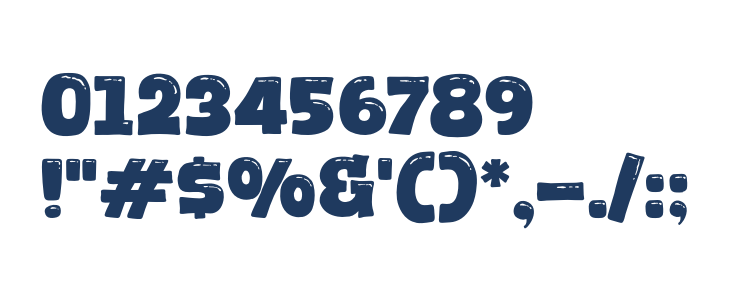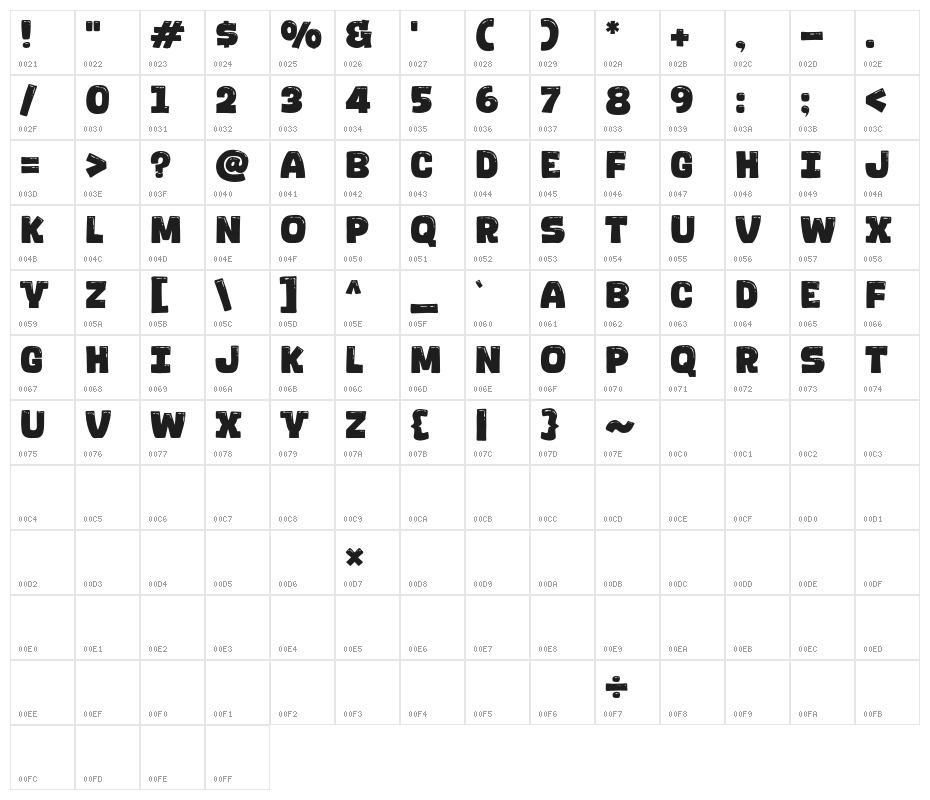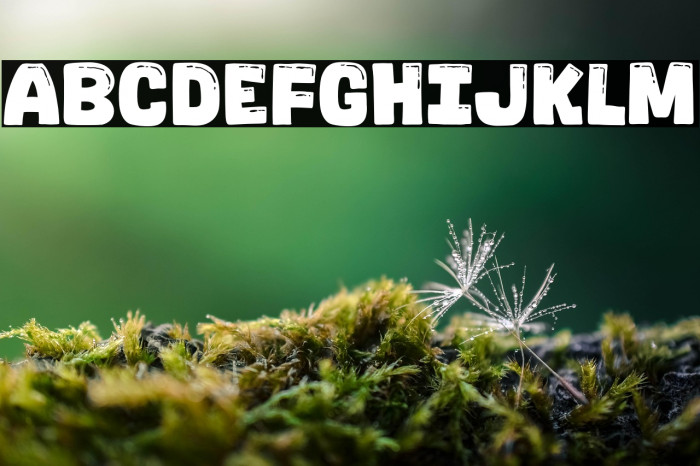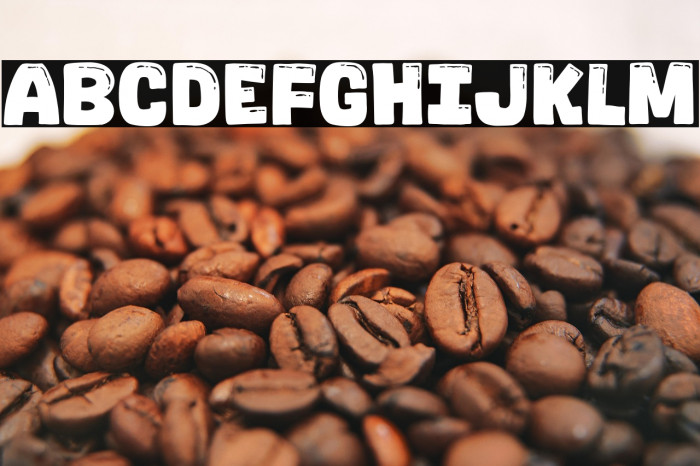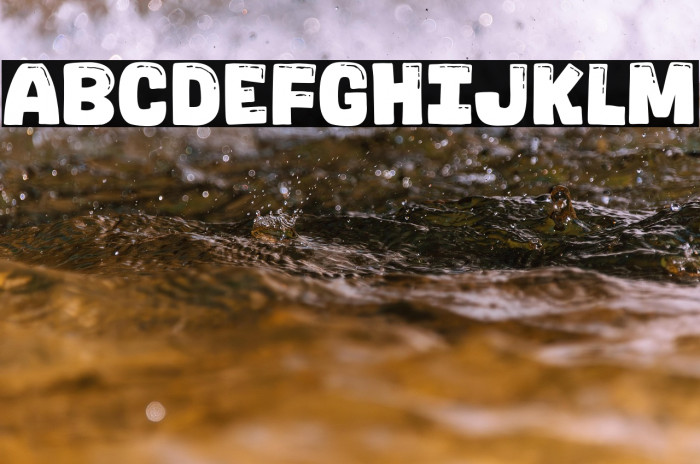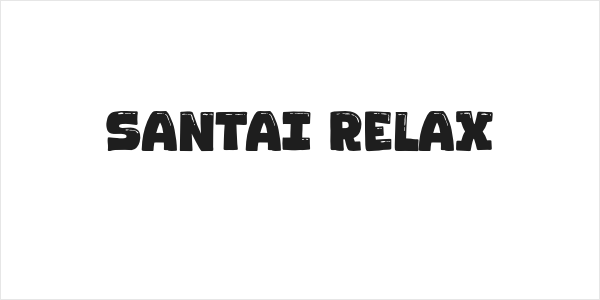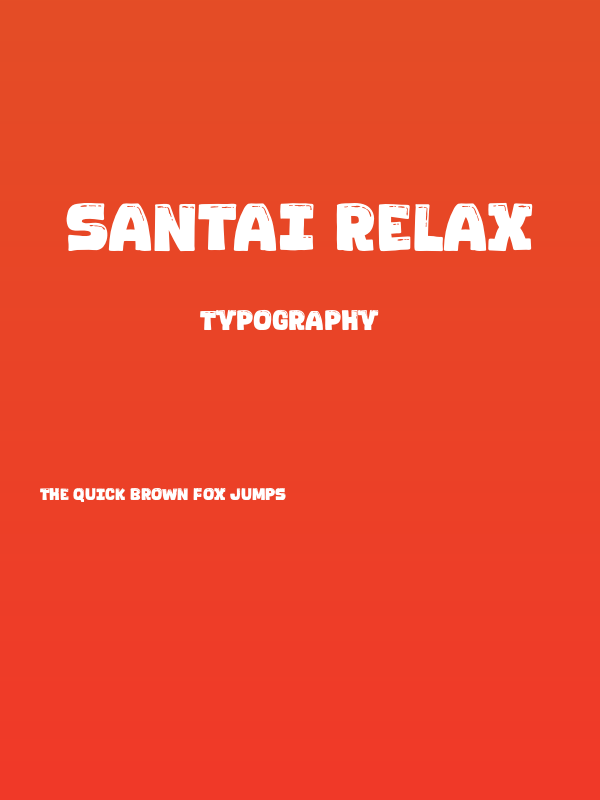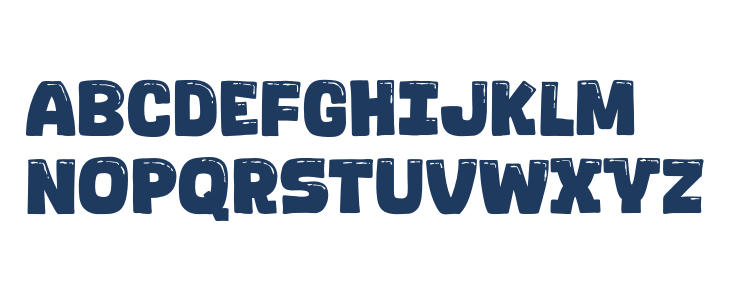
Santai Relax Font
Santai Relax Description
This font features a bold and playful style with a slightly distressed texture, giving it a casual and relaxed appearance. The letters are thick and rounded, with a consistent weight throughout, creating a sense of uniformity and balance. The uppercase and lowercase characters maintain a similar width, enhancing readability. The numbers and special characters follow the same design principles, ensuring a cohesive look across all elements. The font's unique texture adds a handcrafted feel, making it ideal for projects that require a personal touch.
| Overall Style | Playful, Casual |
| Proposed Projects | Ideal for children's books, playful branding, casual invitations, and creative posters. |